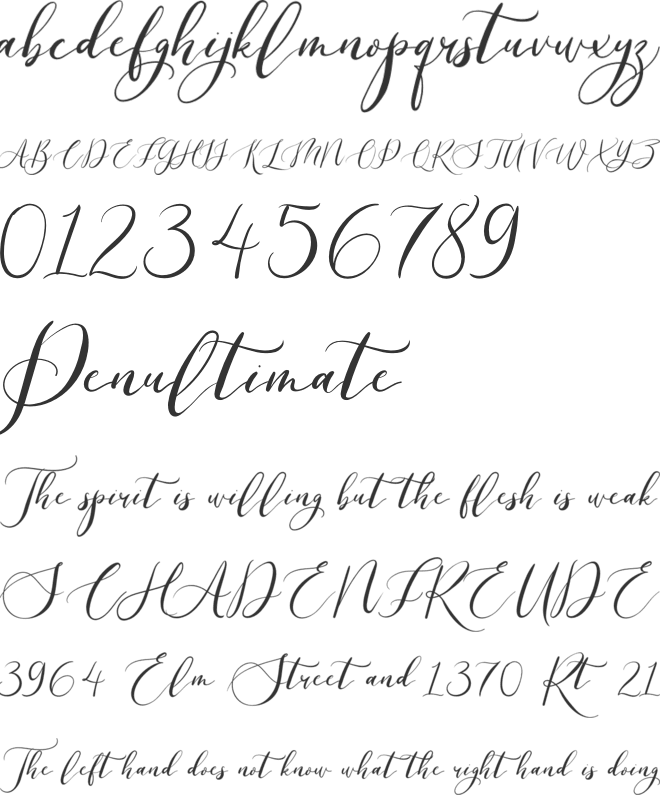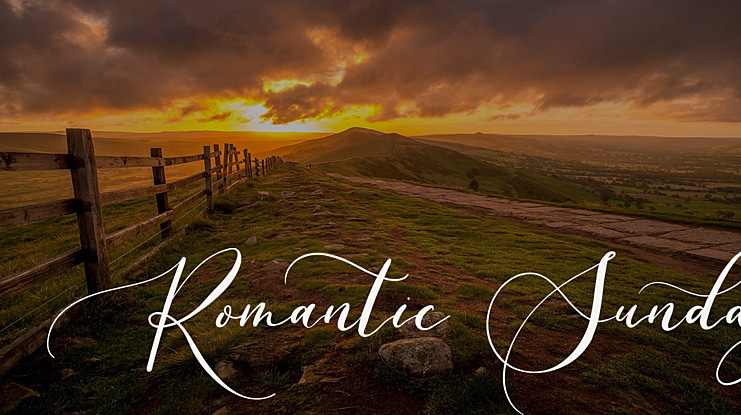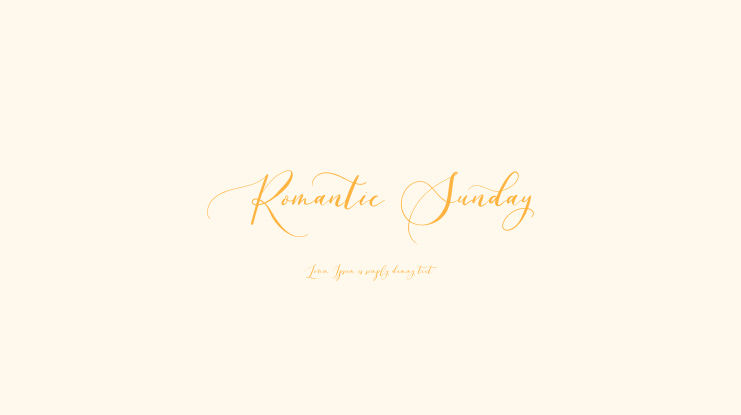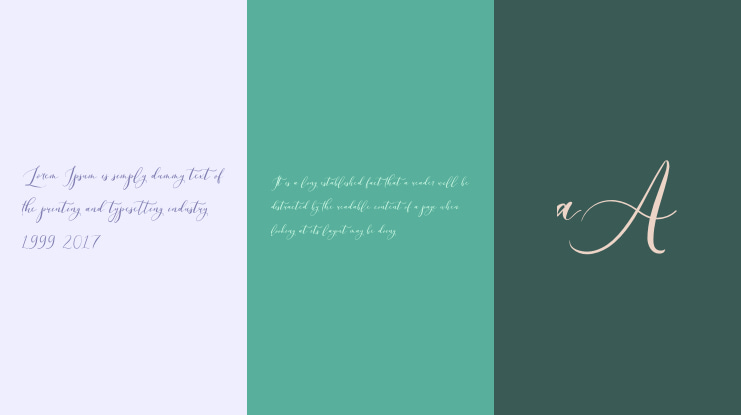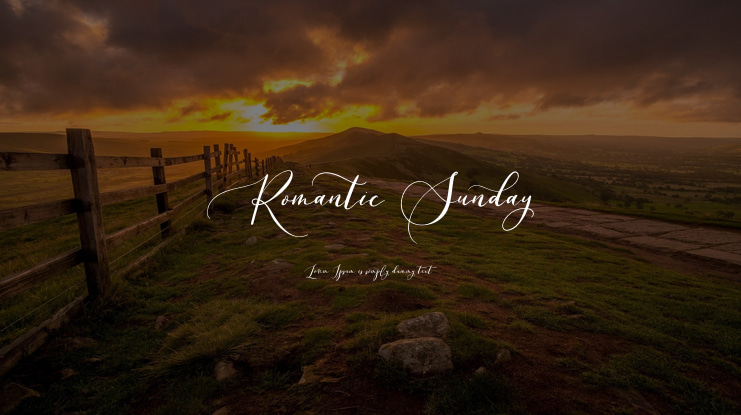
Romantic Sunday Font
Say Hello to Romantic Sunday Calligraphy Font. A new and beautiful font, with contemporary, beautiful and elegance touch.
Romantic Sunday would be perfectly appropriated for your various projects including but not limited to wedding invitations and wedding suites, stationery, packaging, feminine branding, logos, quotes, and prints.